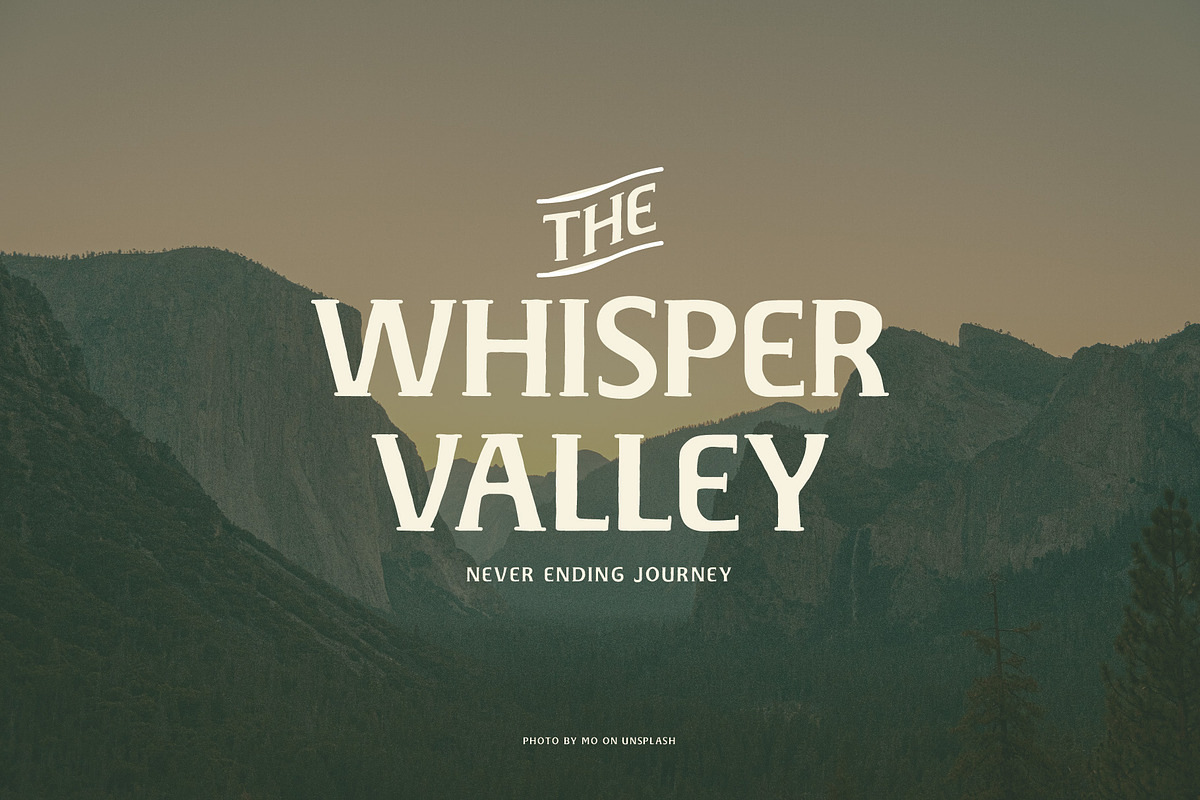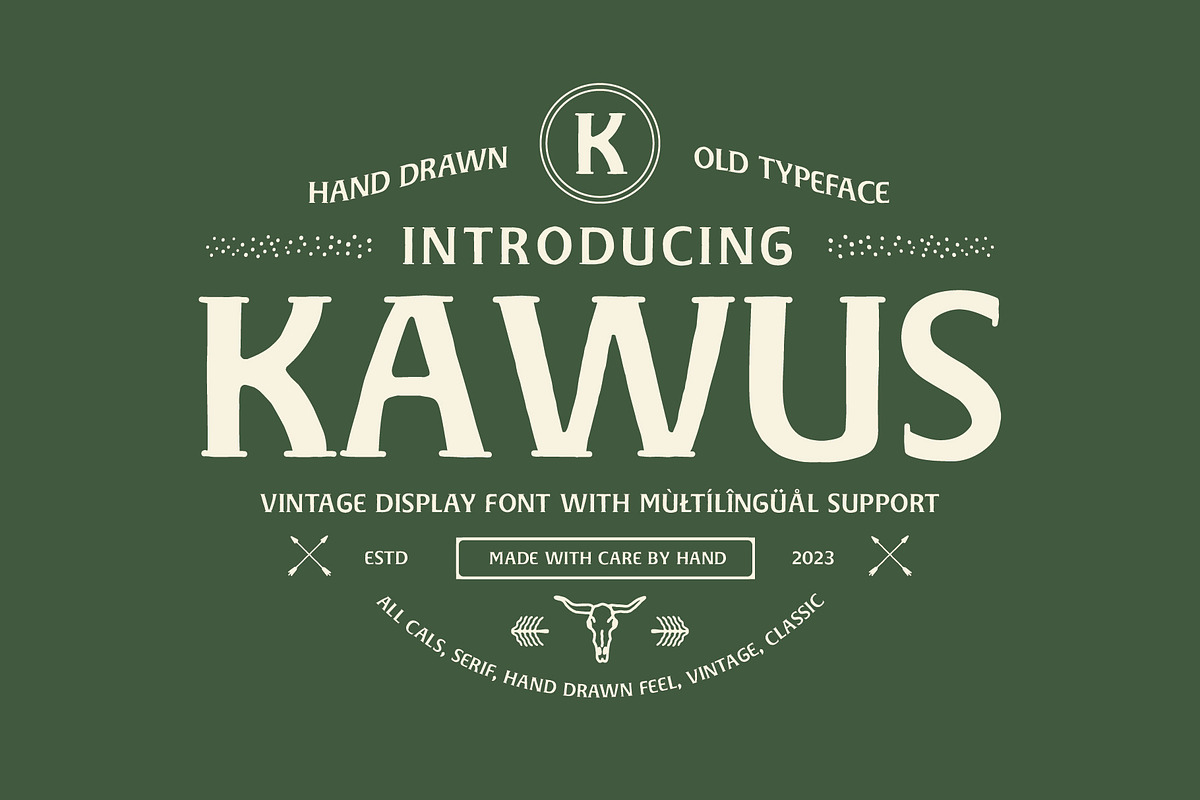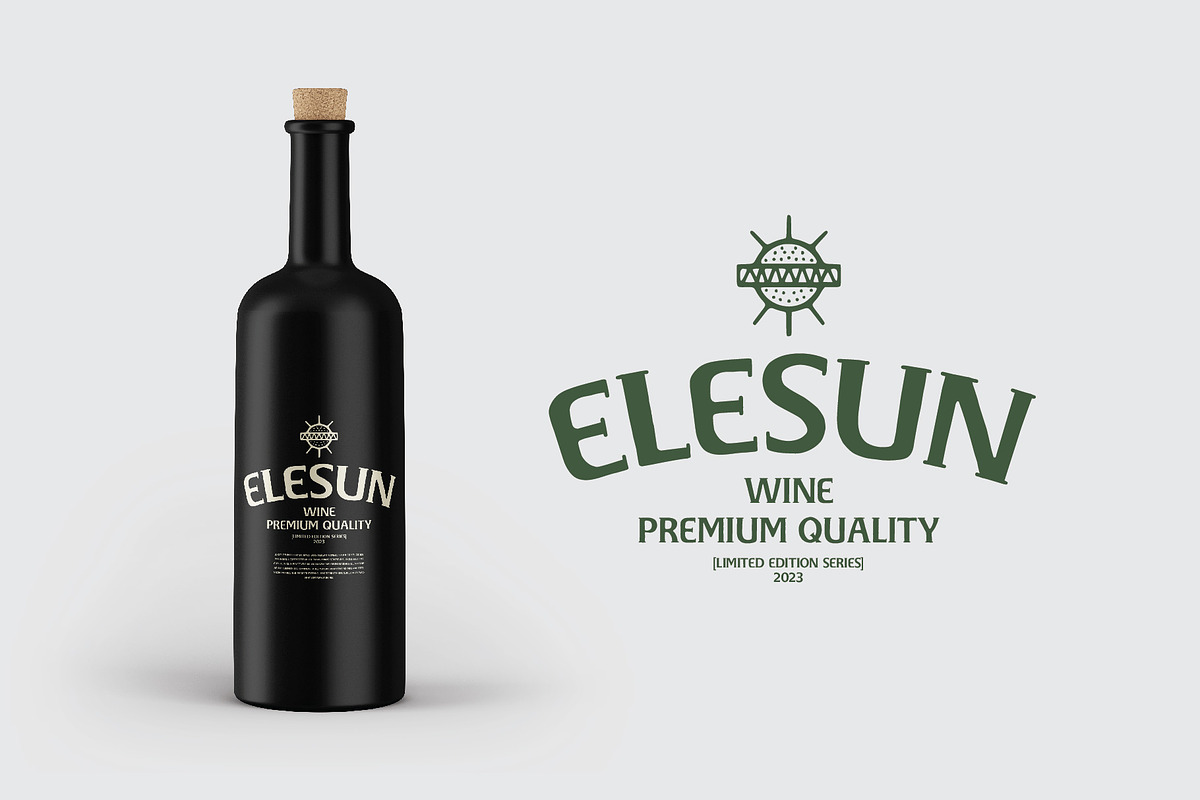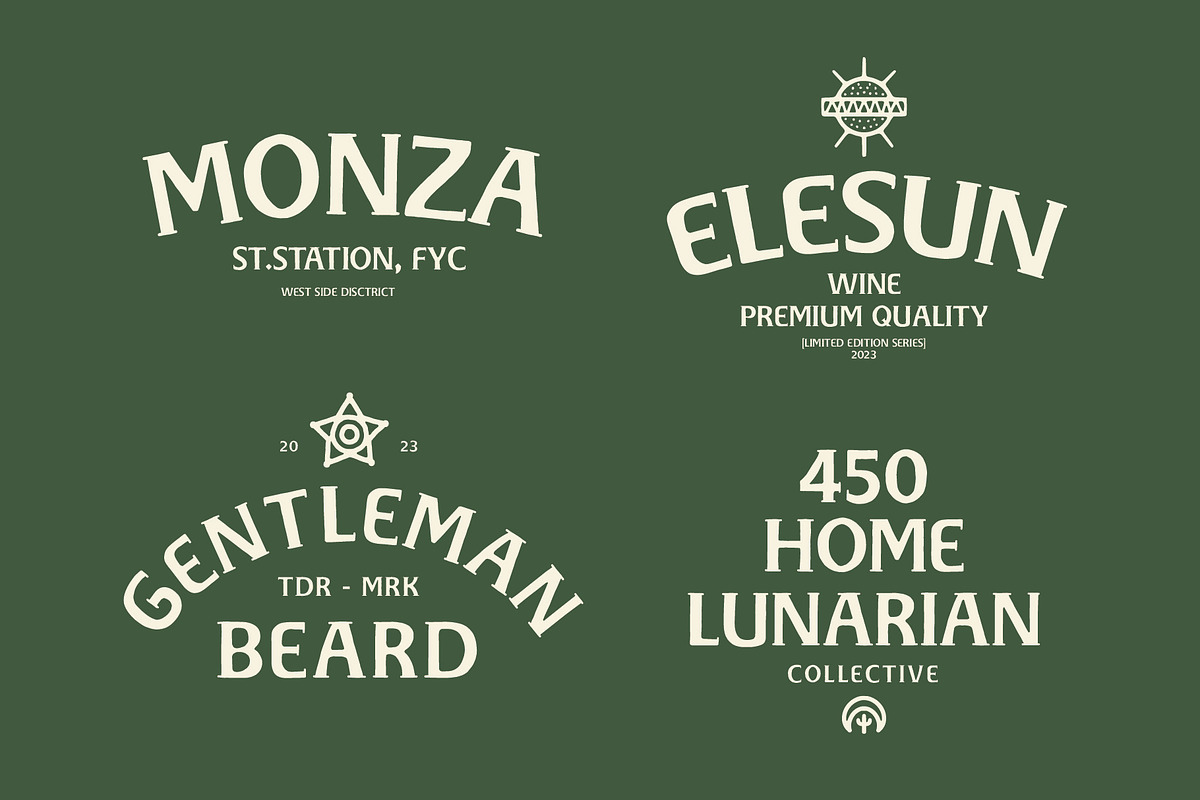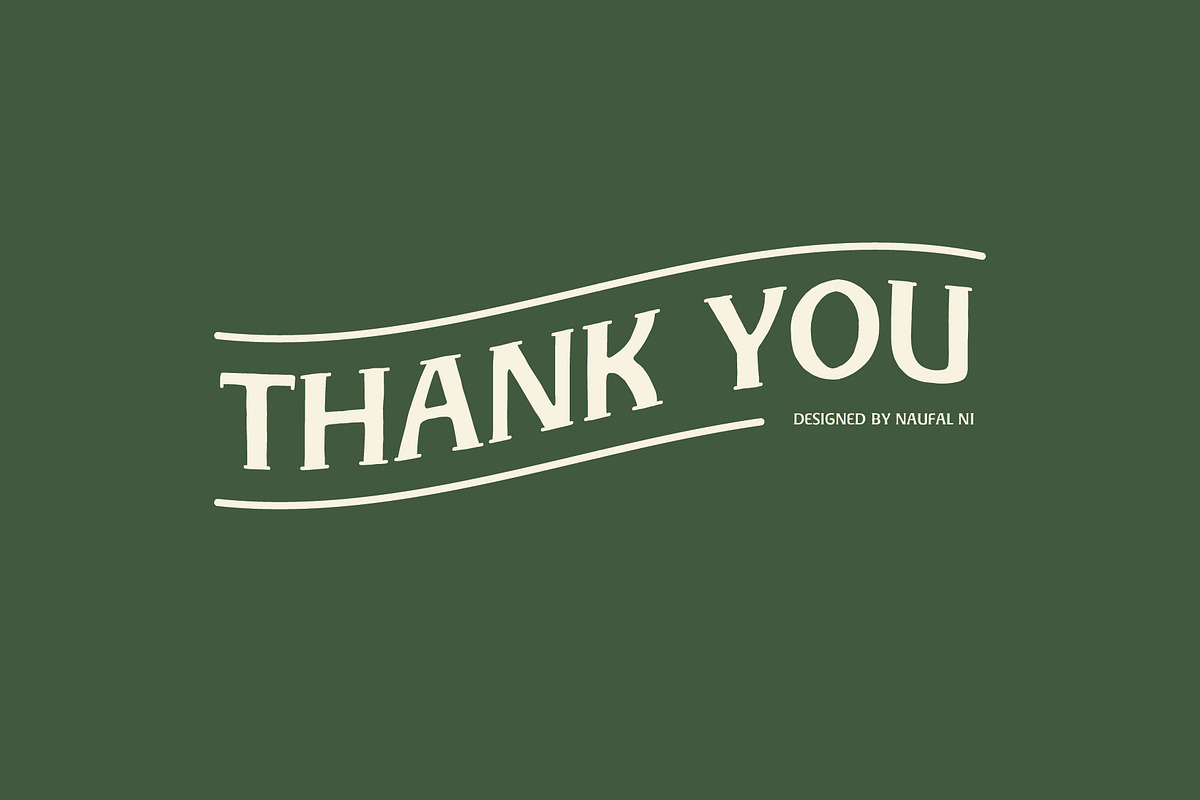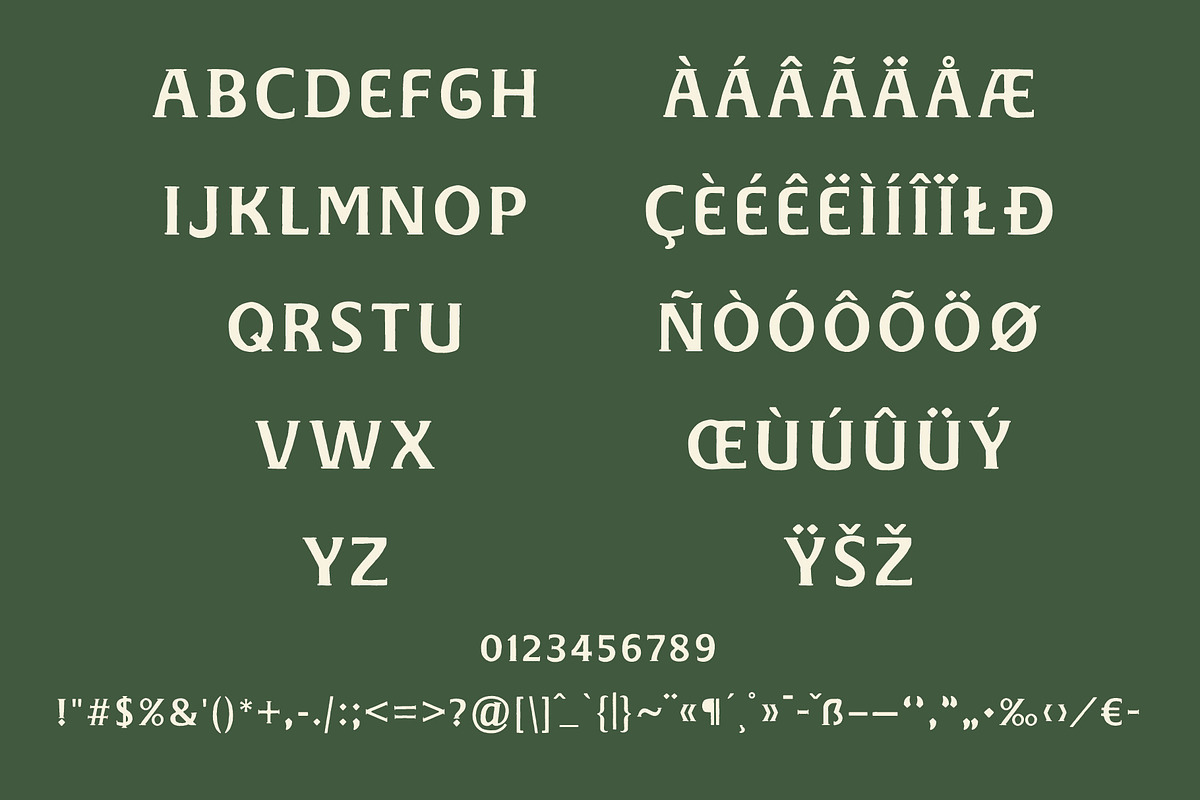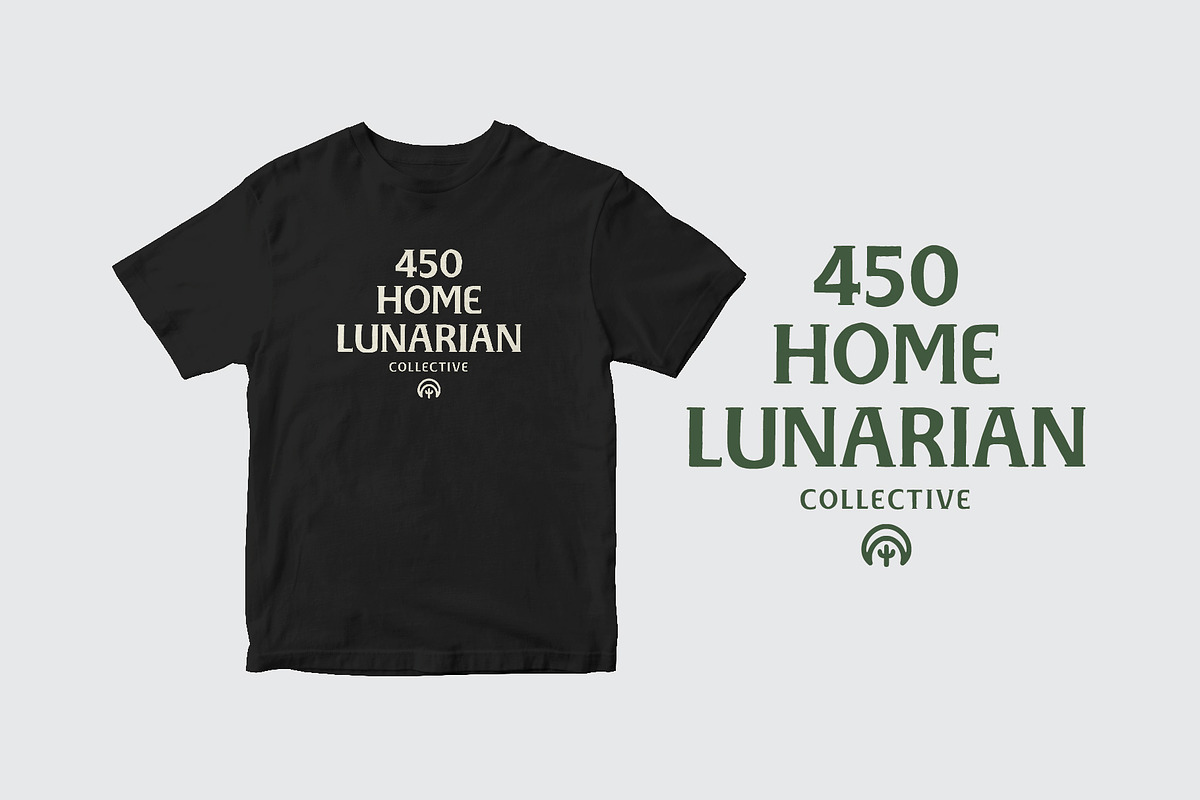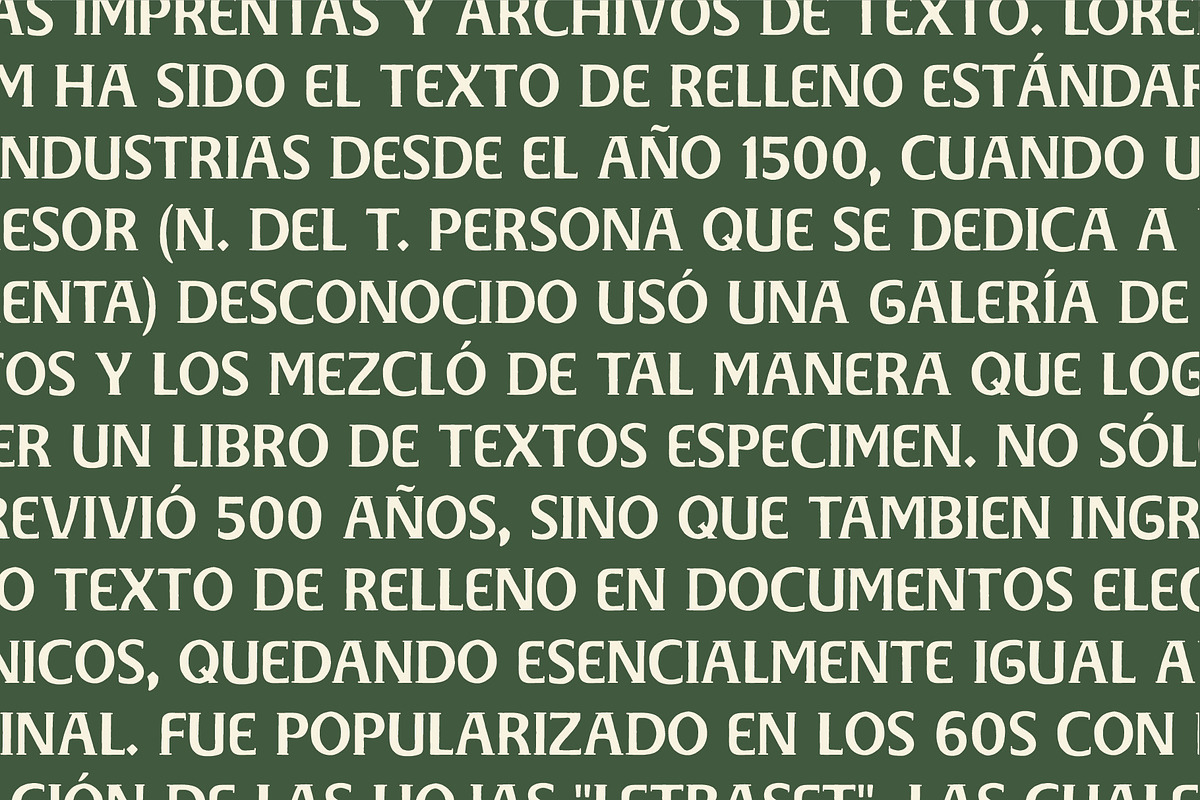
KAWUS - Hand Drawn Old Typeface
Introducing KAWUS - Hand Drawn Old Typeface
KAWUS is serif font, and is inspired by traditional vintage hand drawn art. This font is very suitable as a display font as well as a font for book cover, because it has a high readability. It also has multilingual support, numbers and punctuation, it's rare to find a hand drawn font that has all these features.
KAWUS perfect for making logo designs, badges, packaging, posters, t-shirt designs and more. fonts give a handdrawn desert feel to your design. Hope you like this font!